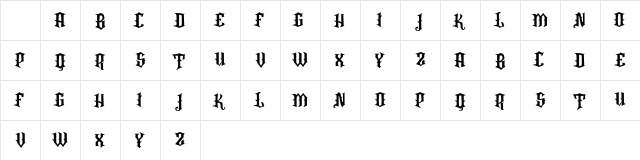
Complete VTKS Rafia Regular glyph index. Displaying only characters natively supported by VTKS Rafia Regular font.
VTKS Rafia is a composed and adaptable typeface that performs quietly and consistently across a wide range of design contexts.
Pro Tip: Use VTKS Rafia in both headline and body roles to test its range before committing to a single application.